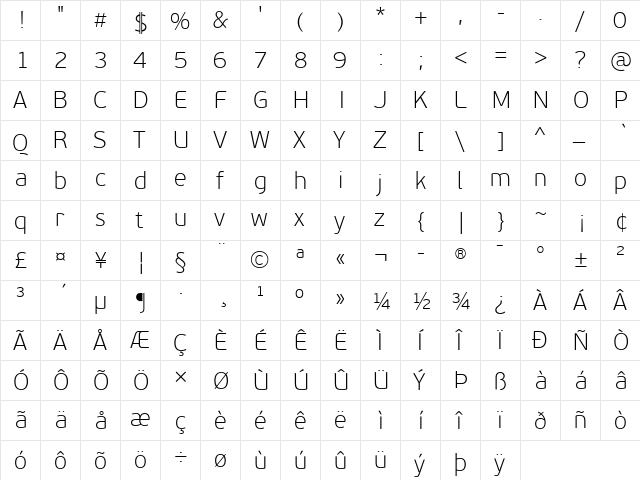
PF BeauSans Pro Thin
| Foundry | Parachute蠗orldwide |
| Designer | Panos Vassiliou |
Design Context for PF BeauSans Pro Typeface
PF BeauSans Pro is a composed and adaptable typeface that performs quietly and consistently across a wide range of design contexts. The delicate stroke weight brings airiness and refinement to layouts.